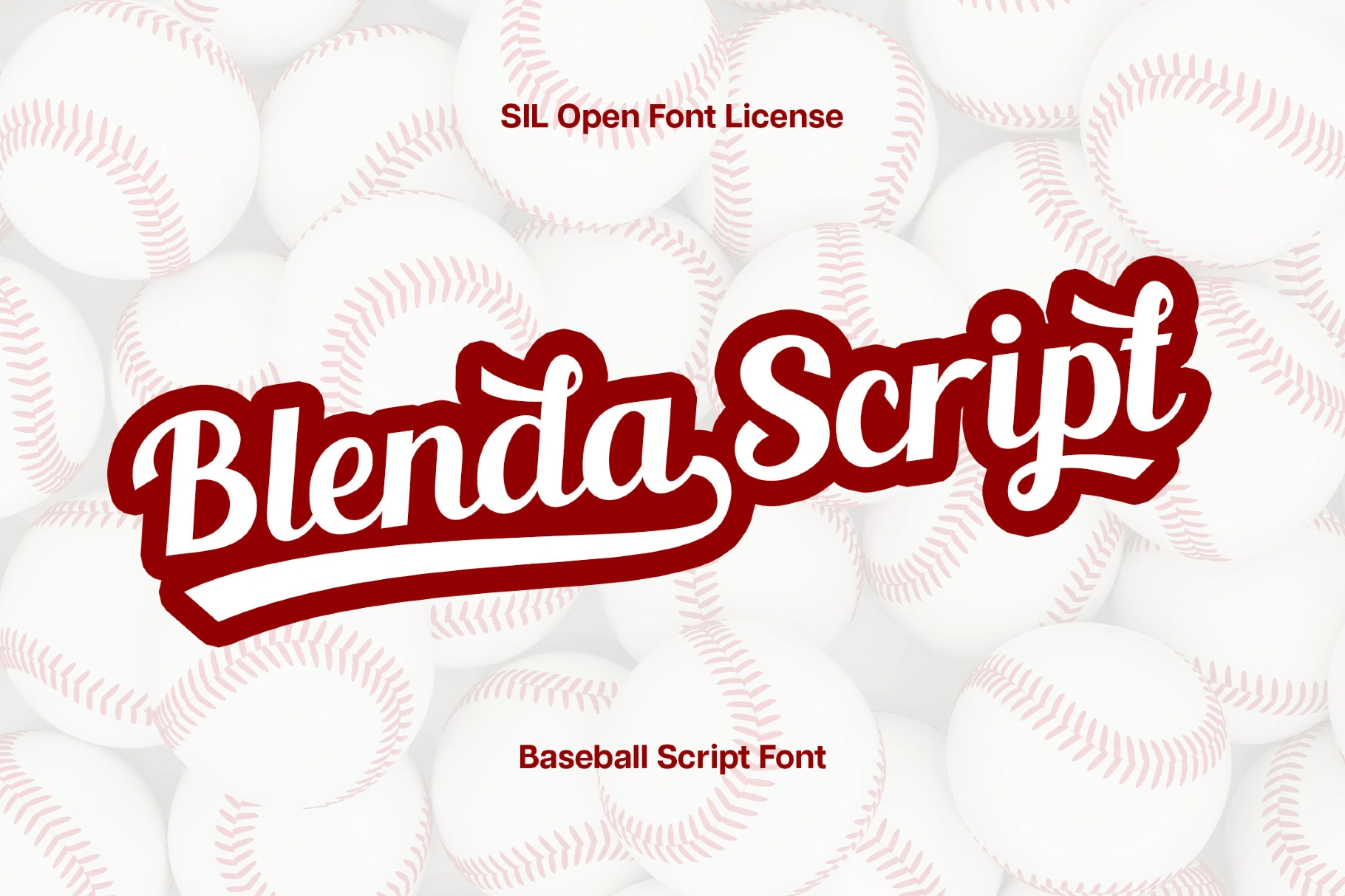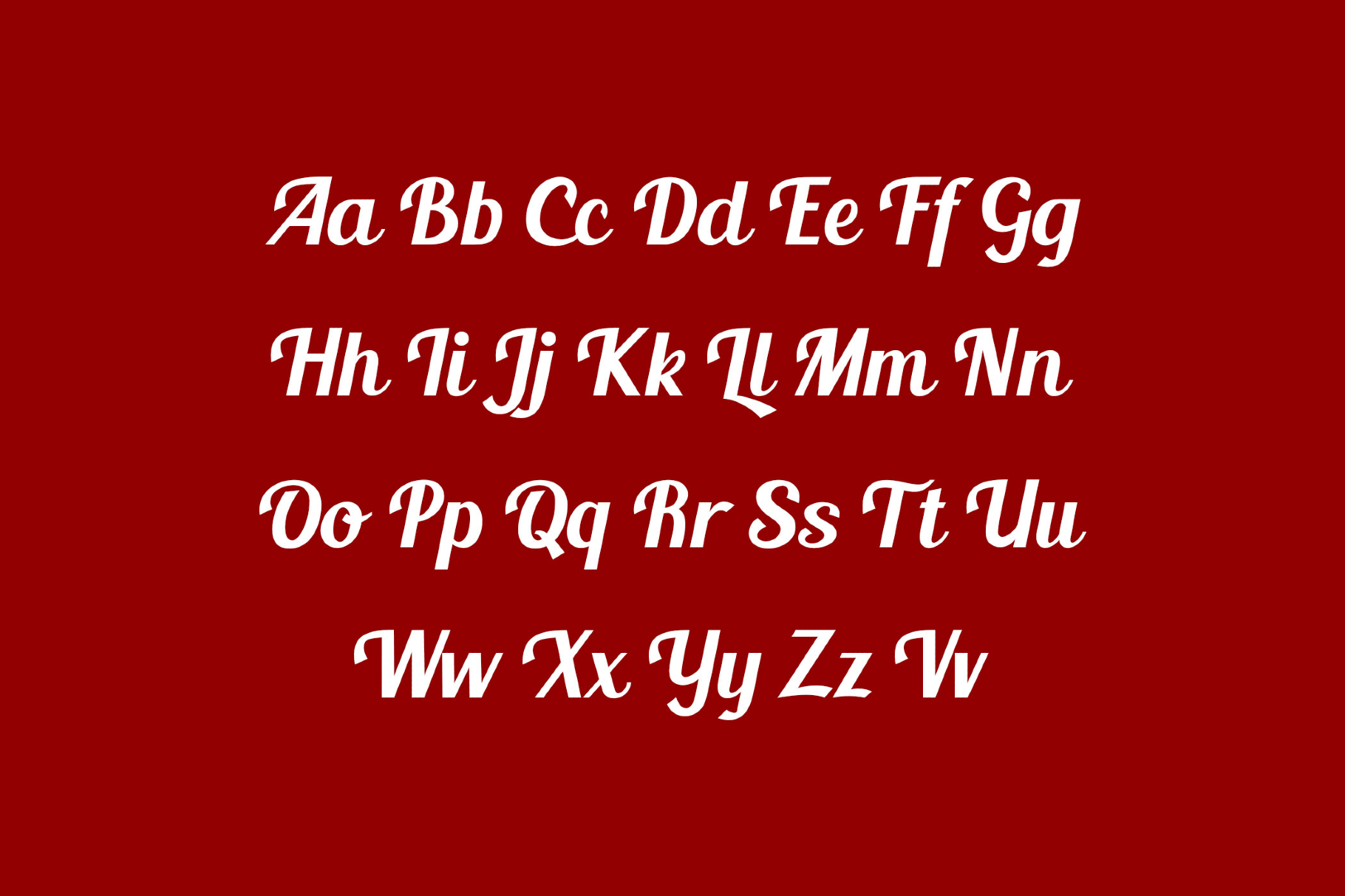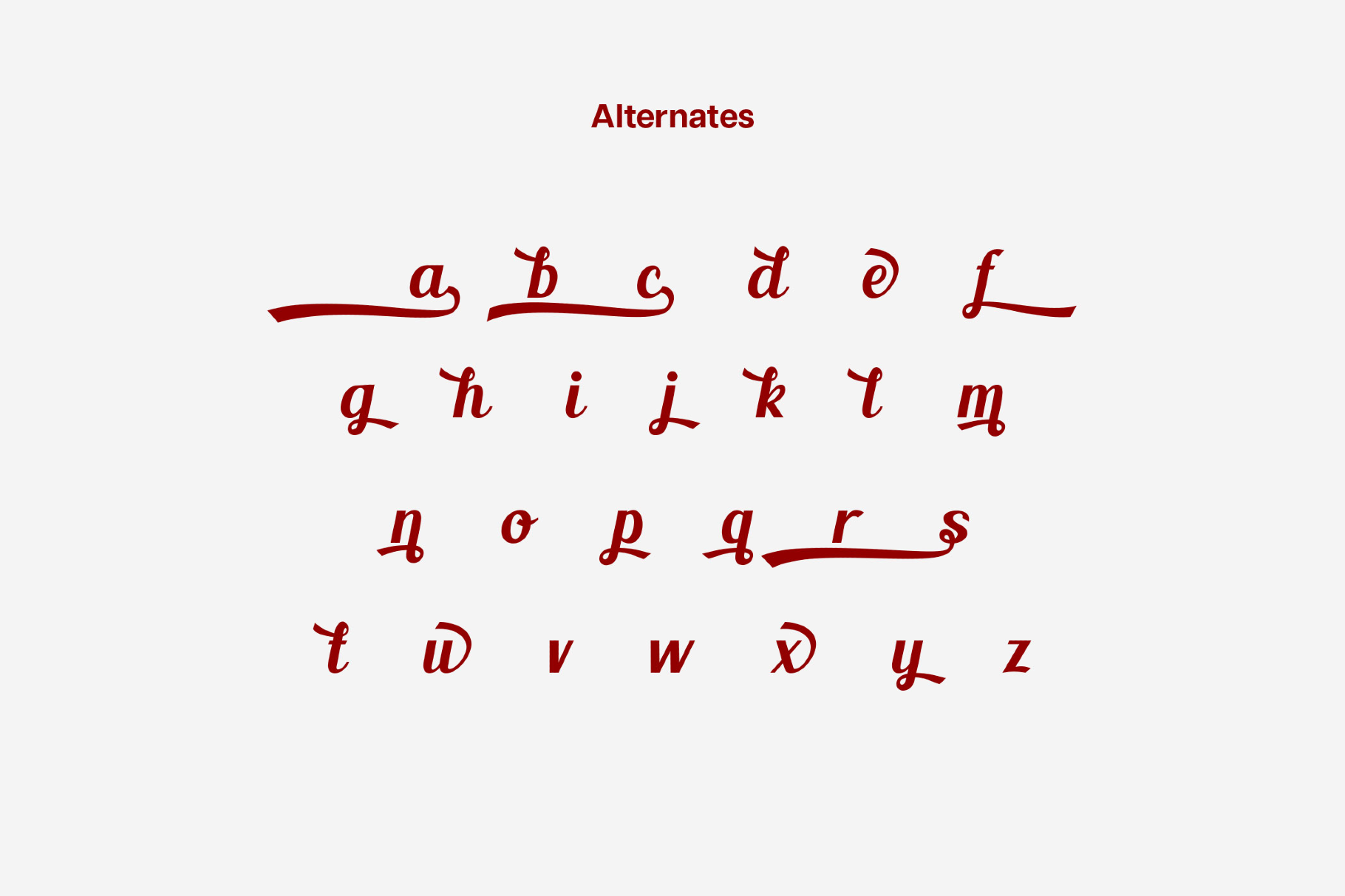
Blenda Script Font
Blenda Script
Blenda Script is a baseball script with rounded terminals and buoyant swashes, reminiscent of 1970s disco posters and hand-painted storefront signage. Use it for logo wordmarks, product packaging, café and boutique signage, album or podcast cover titles, fashion and beauty campaigns, event posters, and social headers.